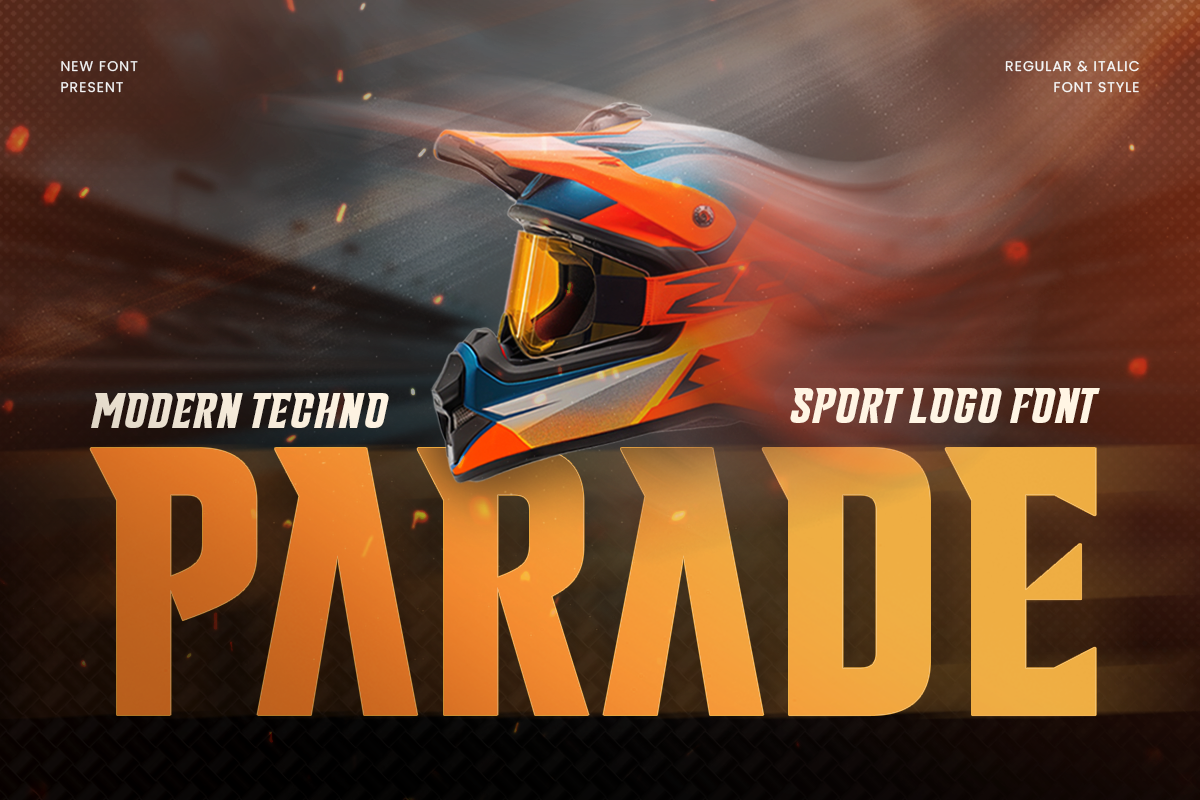
Parade
-Techno Sport Logo Font
Parade – Techno Sport Logo Font
Parade is a techno sport logo font designed with dynamic energy, futuristic character, and a powerful athletic presence. Its sharp, modern letterforms combine the intensity of sports typography with a high-tech aesthetic, creating a bold visual style for competitive and performance-driven designs.
Perfect for sports logos, racing identities, esports branding, gaming titles, team graphics, automotive designs, jerseys, and athletic apparel, Parade delivers speed and impact across every composition. It also works exceptionally well for posters, headlines, signage, packaging, social media, and advertising campaigns.
As a modern techno sport font, Parade is ideal for esports teams, racing brands, fitness companies, automotive projects, sportswear labels, and futuristic product branding. Its energetic personality helps designers create distinctive logos and visual identities that perform confidently across digital, UI design, and print applications.
Parade – Techno Sport Logo Features
• Dynamic techno letterforms with a sporty futuristic style
• Bold and energetic character for competitive branding
• Ideal for sports logos, racing, esports, and gaming projects
• Perfect for team identities, jerseys, and athletic apparel
• Great for automotive graphics, posters, and bold headlines
• OpenType features for creative typographic flexibility
• Excellent for digital, social media, advertising, and print projects
Power up your visual identity with Parade – a dynamic techno sport font built for speed and impact. 🏁